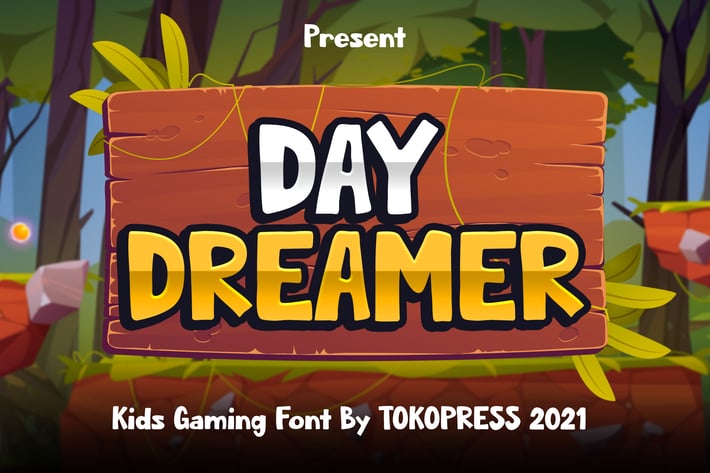
Daydreamer - Kids Gaming font
Daydreamer - Kids Gaming Font
Daydreamer is a chunky, playful display font crafted with bouncy baselines, soft corners, and fun-loving proportions—perfect for kids' gaming interfaces, playful headlines, and adventure-themed branding. Its rounded, cartoon-inspired structure brings high energy and friendliness, making it instantly appealing to young audiences and game-loving users.
With a vibe that’s bold, energetic, and delightfully quirky, Daydreamer fits right into the world of mobile games, learning platforms, cartoons, and kid-focused product packaging. Each letter is designed to capture curiosity and fuel the imagination—without sacrificing readability.
Whether you're creating a YouTube thumbnail, a game interface, or a storybook app, Daydreamer makes your message pop with personality. The font’s approachable character makes it ideal for branding that speaks to kids and parents alike, while also standing out in saturated digital environments.
Want your title to grab attention faster than a power-up? Daydreamer is your go-to weapon for vibrant gaming posters, playful product labels, or educational content for young learners.
✦ Why You’ll Love Daydreamer:
- Kid-Friendly Look – Instantly grabs attention in children’s content
- Rounded Playfulness – Safe and soft for youthful design themes
- High Legibility – Great for both UI and print
- Expressive Style – Full of movement and visual rhythm
✦ Perfect For:
- Mobile Games & UI
- YouTube Titles & Thumbnails
- Kid’s Books or eLearning Apps
- Stickers, Toys, and Product Labels
-- Event Posters & Printables